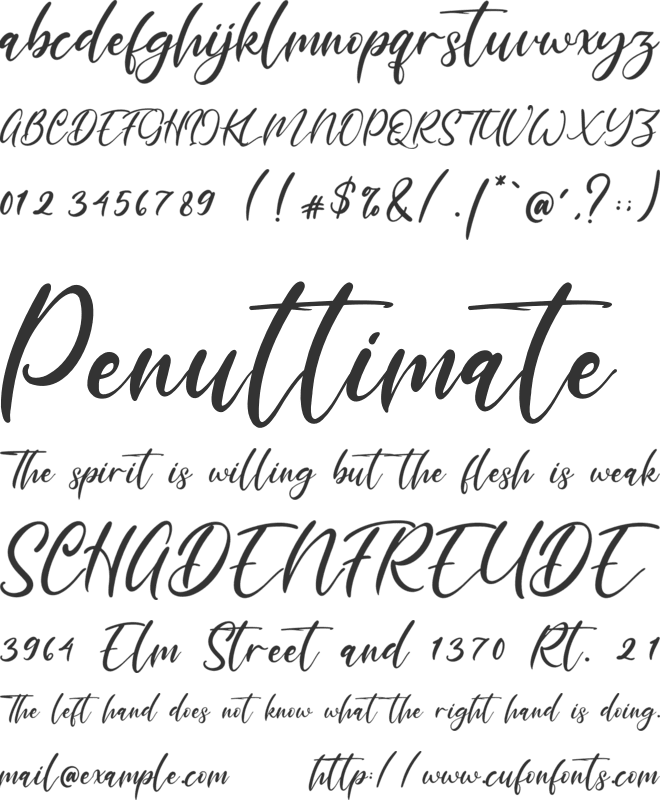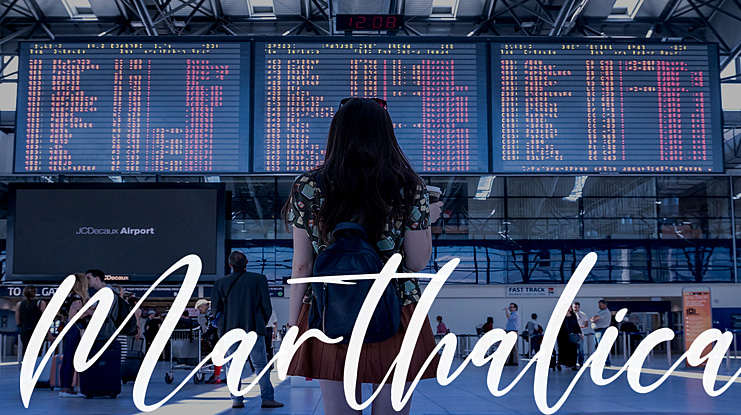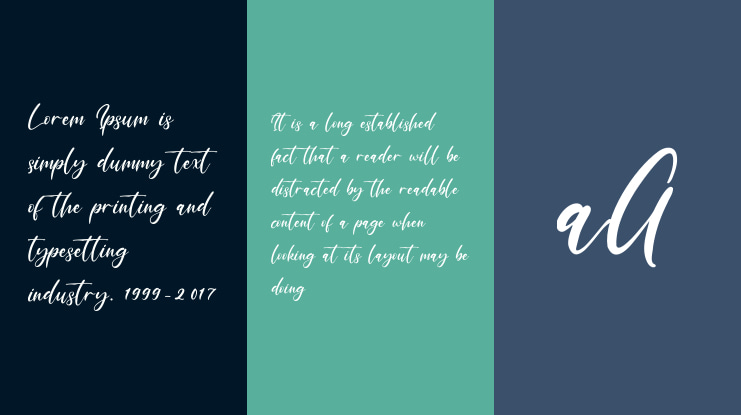
Marthalica Font Family
Marthalica Script Typeface. A collection of letters and numbers suitable your projects also great for Logotype, Branding Design, Logo Design, Digital Lettering Arts, T-Shirt/Apparel, Poster, Magazine, Signs, Advertising Design, and any design needs.